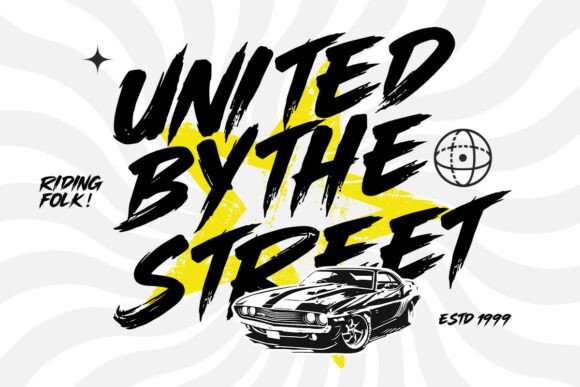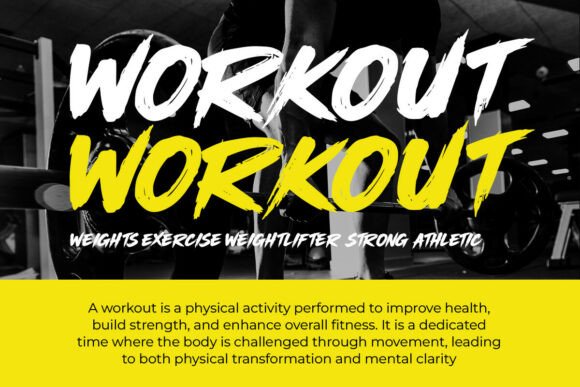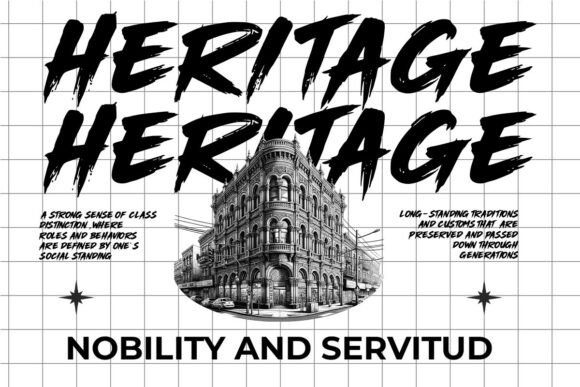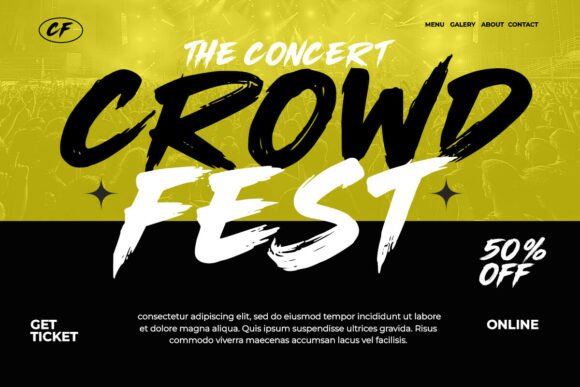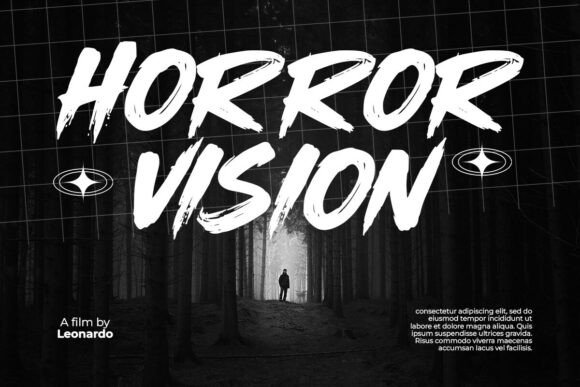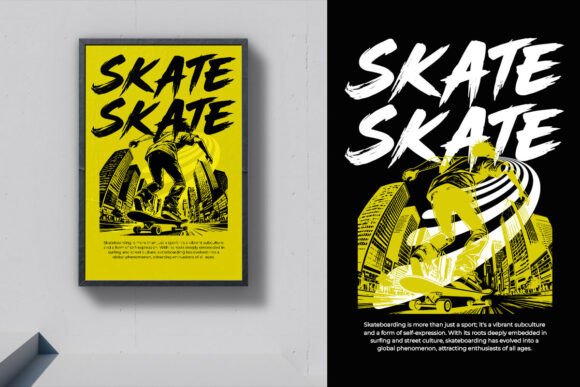
Introduction to Rush Zone Font
Rush Zone is a bold handwriting brush font crafted to deliver energetic, expressive, and natural typography for modern creative projects.
Inspired by fast brush strokes and spontaneous handwriting movement, this font captures a strong handcrafted character that instantly attracts attention Designed for designers who need typography with dynamic personality, Rush Zone combines strong brush textures with excellent readability, making it perfect for impactful headlines and branding visuals.